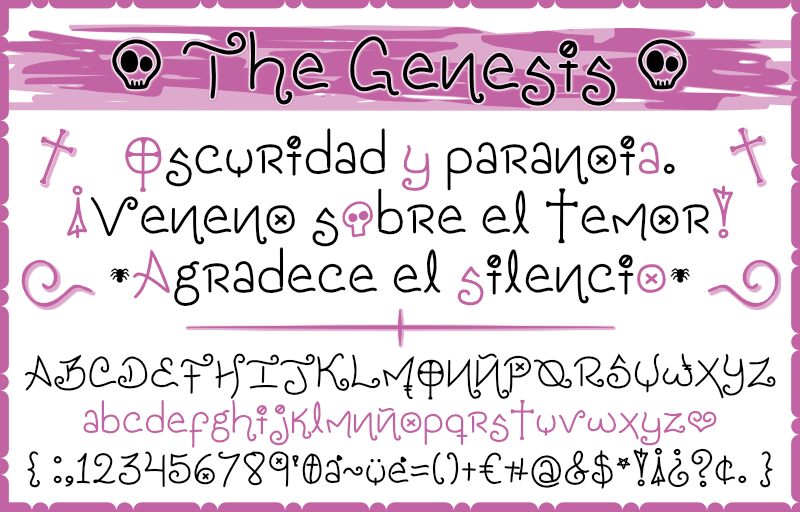
The Genesis
Esta font se basa en mi tipo de letra al escribir ttulos. Con este signo "☺" puedes sustituir la -o- minscula con una calavera, la araa es "" y la calavera grande es "○".
This font is based on my typeface when I write titles. With this sign "☺" you can replace the lowercase -o- with a skull, the spider is "" and the large skull is "○".